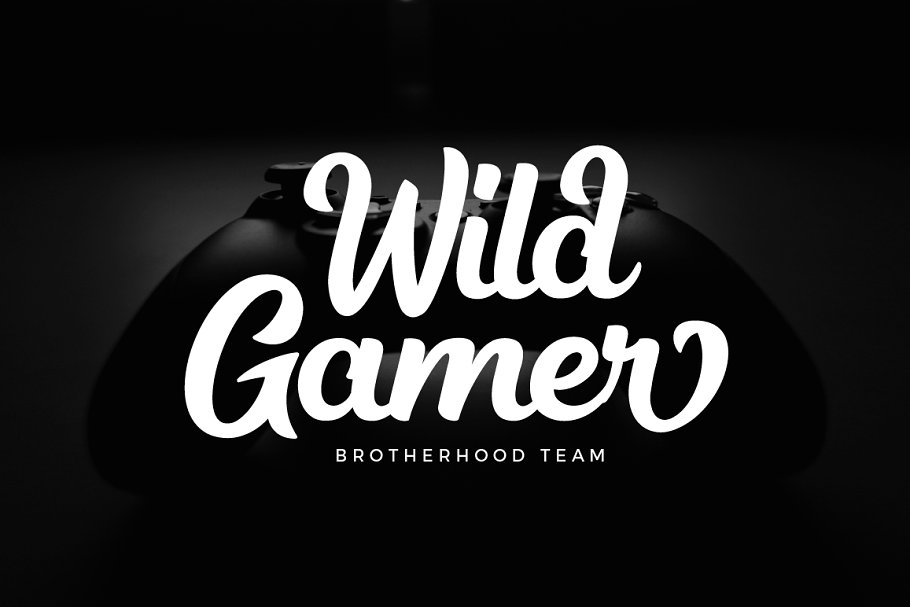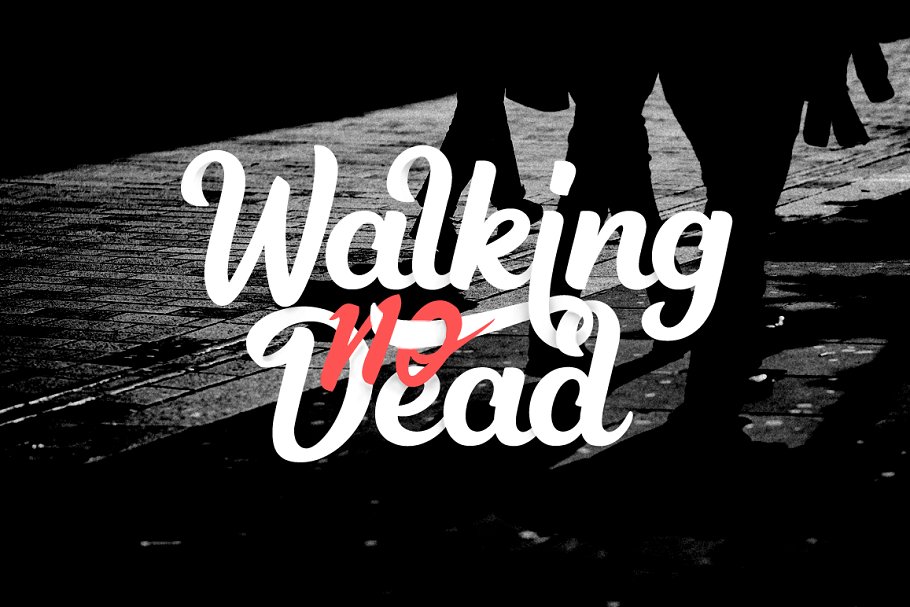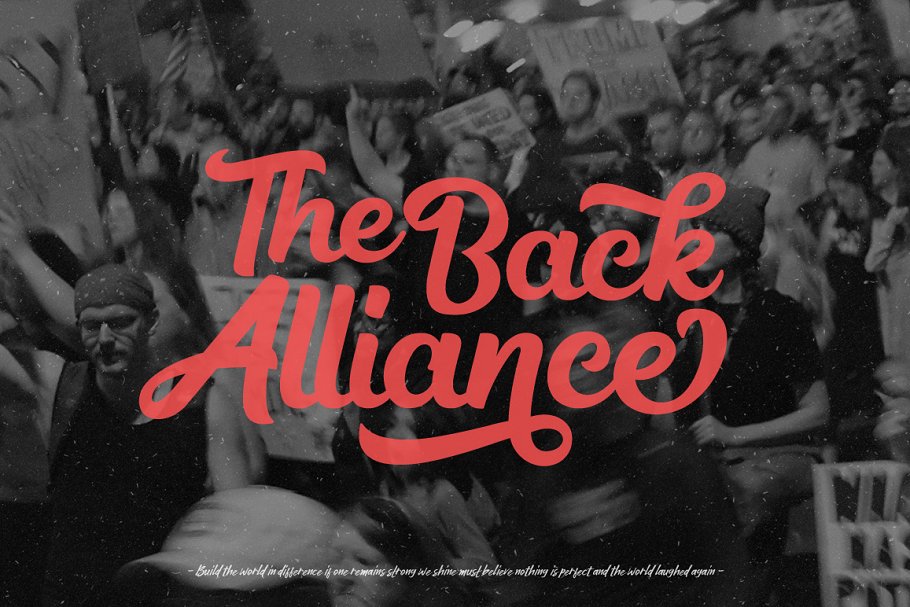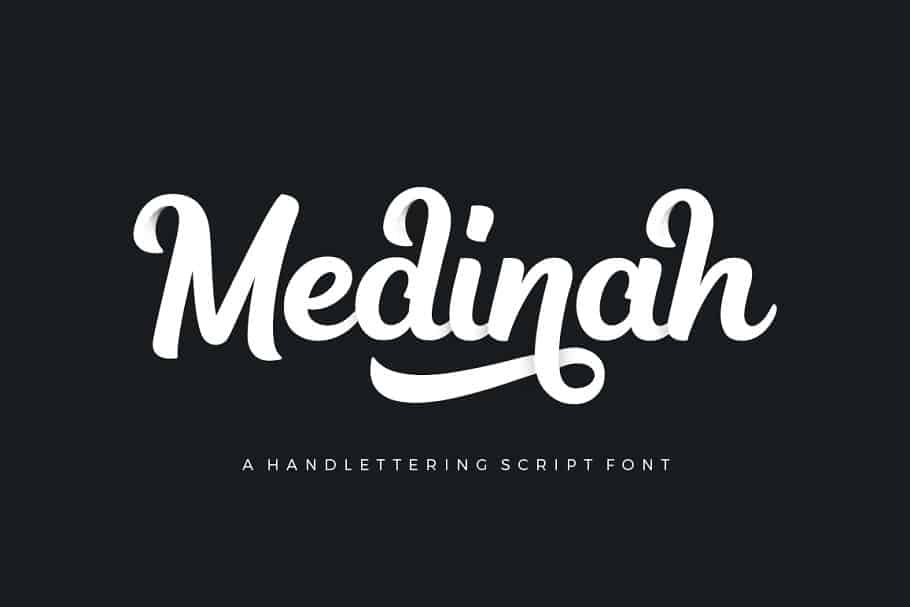
Medinah Script Font
Hi designer. A handlettering script font. a brushy script for anything that doesn’t take itself too seriously. Introducing Medinah Font. Medinah is a handlettering script font. Medinah a very good for logotype, letterhead, poster, apparel design, label, website header, fashion design, name tag, quotes, t-shirts, packaging and any more.